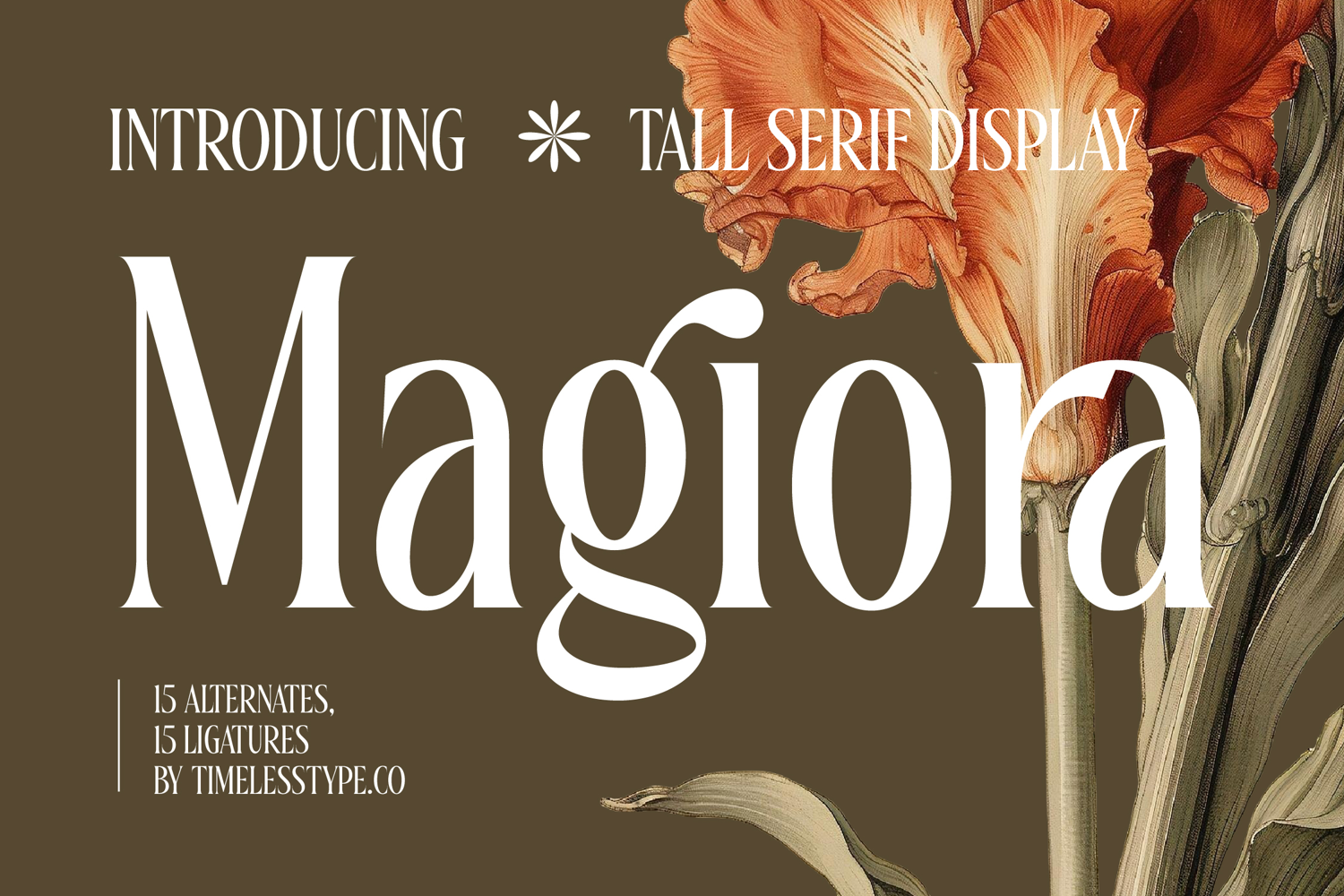
Magiora - Tall Serif Display
Magiora is a tall serif display font that radiates elegance, sophistication, and modern artistry. With its elongated proportions, sharp serifs, and graceful alternates, this typeface delivers a refined yet bold presence, making it perfect for standout headlines and stylish branding. Designed with 15 ligatures and 15 alternates, Magiora provides creative flexibility, ensuring that every design feels unique, expressive, and polished.
This font is crafted for headline typography, where its tall structure and clean forms immediately capture attention across posters, banners, and editorial spreads. In branding and logo design, Magiora communicates prestige and confidence, making it a great choice for fashion houses, beauty products, luxury goods, and lifestyle brands that want to project timeless refinement. Its high-contrast strokes also make it an excellent fit for packaging design, particularly for wine labels, perfumes, artisanal goods, and gourmet products where elegance and detail are essential.
Magiora thrives in advertising campaigns, wedding invitations, and event promotions, where its ligatures and alternates add a custom, stylish touch. On social media and digital platforms, the font enhances visual storytelling with an editorial-ready look that ensures sophistication and clarity.
With multilingual support, Magiora adapts seamlessly to global projects, making it versatile for international branding and publishing.
Ultimately, Magiora is more than just a serif font—it is a visual statement of elegance and authority. Whether applied to editorials, branding, packaging, or digital media, it guarantees projects that radiate style, creativity, and unforgettable sophistication.